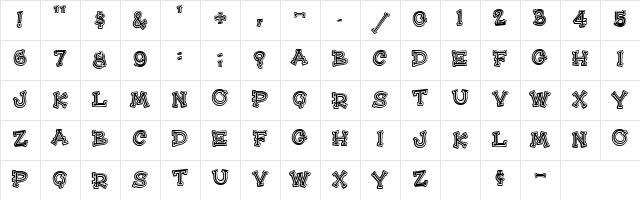
Hee Haw MF Regular Font Preview
Hee Haw MF Regular
Design Context for Hee Haw MF Typeface
Hee Haw MF is a composed and adaptable typeface that performs quietly and consistently across a wide range of design contexts.